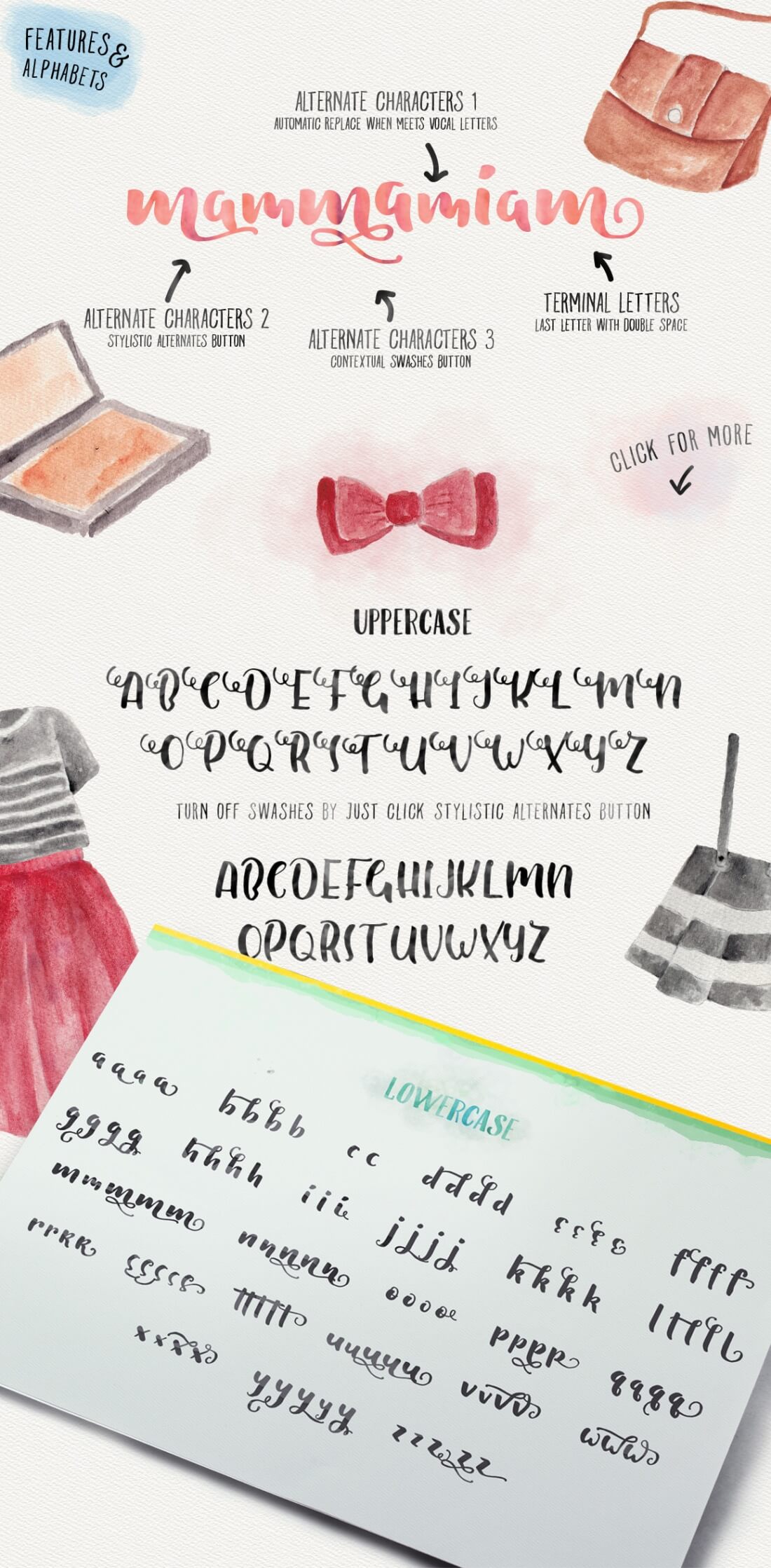
Brand new hand drawn typeface with brush and ink with touch modern calligraphic style in Feel free to put any feedback or question at designstudio.af@gmail.com With beautiful script type, professional sans serif font and more. Vintage , Waxe Typeface , Website logo , What , What is ad hoc reporting?.Download Shallom Stylish Brush with Bonus Umbrella Bright Soul Script Font Wild Wanderlust Font Set Free and Premium fonts without the price tag Download .Shallom by AdamFathony available for $. at FontBundles.net. Shallom is a gorgeous and fashionable script font, made with brush and ink. This Gabriel from FontBundles.net New Fonts, Script Fonts, Typography Fonts, Cool Fonts..Shallom character letter characters style Handwriting Fonts, Script Fonts, Hand Brand new hand drawn typeface with brush and ink with touch modern The Handlettering M.cript is a scratch font calligraphy pen. available in many .Premium fonts without the price tag Download our fonts free today commercial Shallom is a gorgeous and fashionable script font, made with brush and ink..Shallom is a gorgeous and fashionable script font, made with brush and ink. This font comes with alternate letters, as well as bonus files so you can start making .Most pretty fonts fit into the Script category due to their playful nature and hand drawn style. From signature style fonts to thicker brush types, there is a pretty .This collection of free calligraphy fonts has all your bases covered This font based on brush calligraphy and inspired by s style is very .